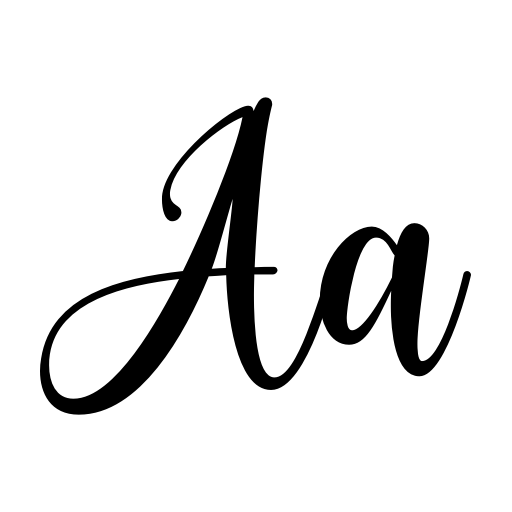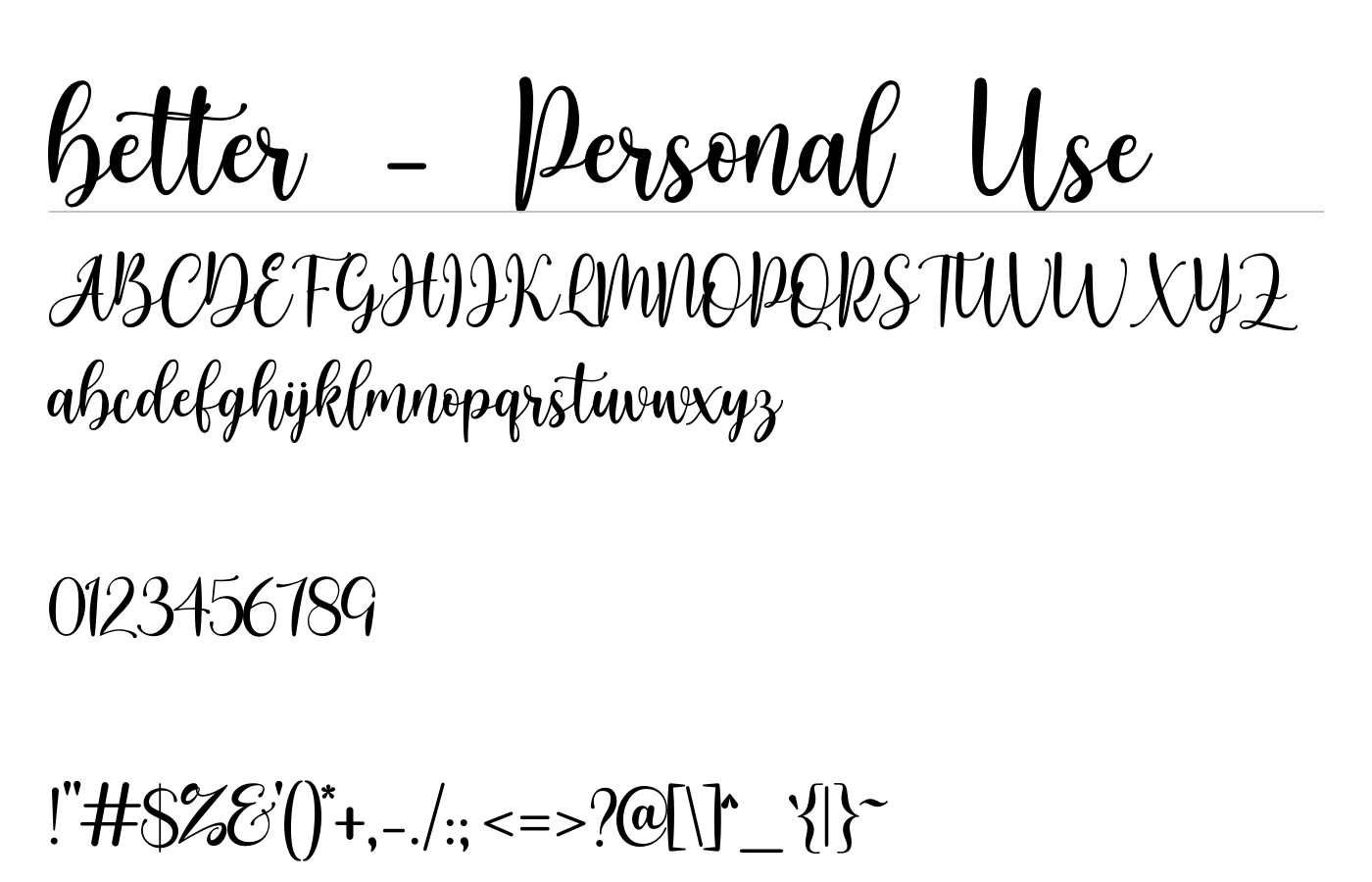
Better is a charming script font with a light, flowing style that combines elegance and warmth. Its varied stroke widths and delicate curves give it a handcrafted, personal touch, making it ideal for invitations, branding, and creative projects that seek a friendly yet refined look. This font works beautifully in settings where a graceful, approachable feel is desired, such as logos, greeting cards, and stylish headlines.
better - Personal Use Font
About better - Personal Use Font